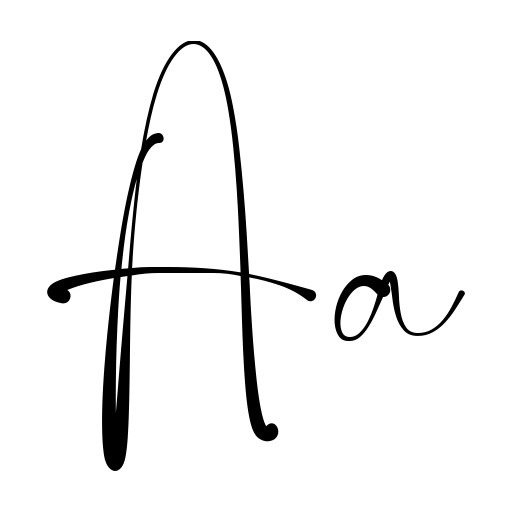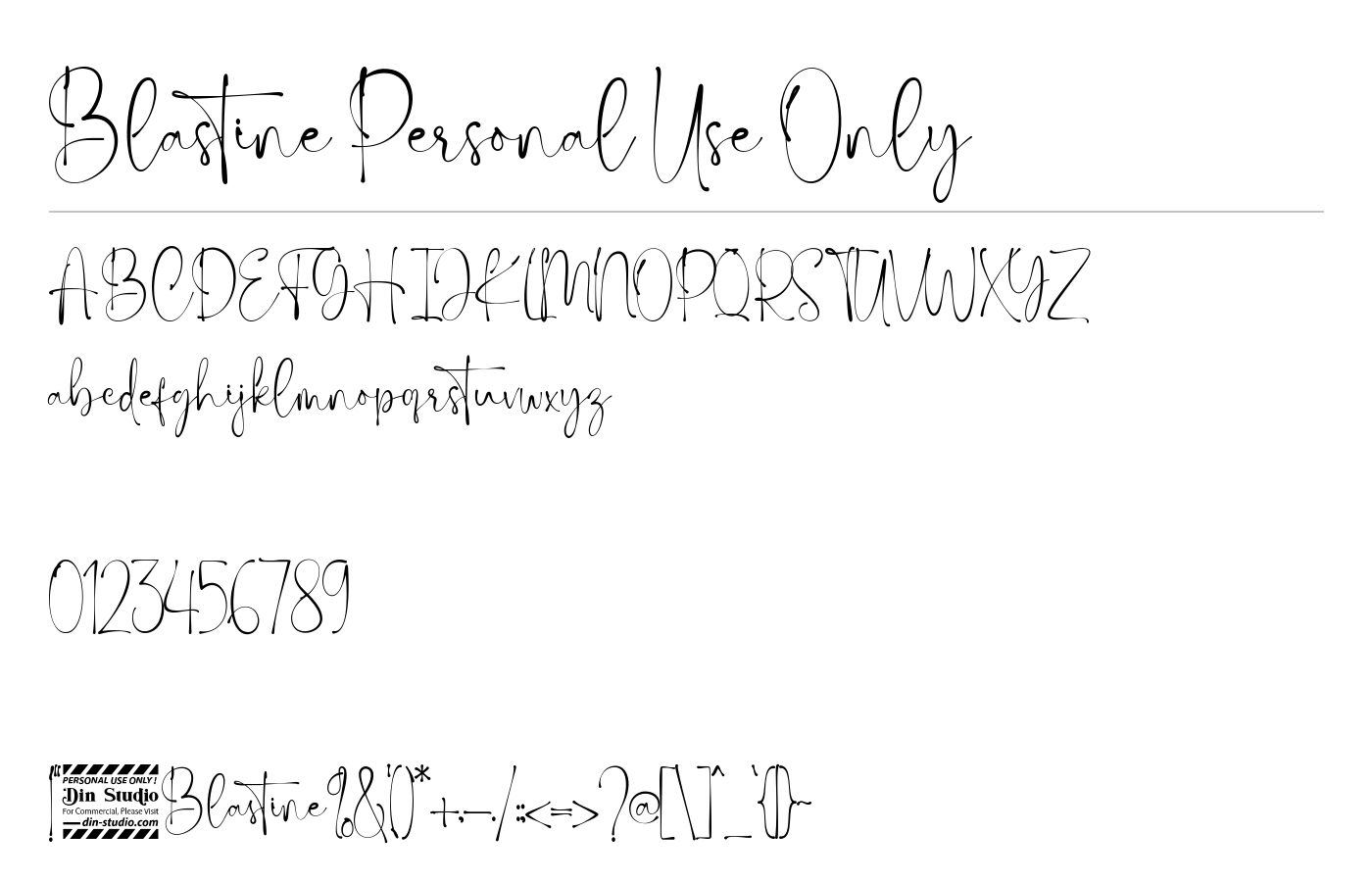
Blastine Personal Use Only is a delicate and whimsical script font characterized by its thin, flowing strokes and elegant, handwritten style. With its tall, narrow letterforms and playful loops, it brings a charming and personal feel, making it ideal for invitations, greeting cards, and creative projects where a light, graceful touch is desired. This font works best in decorative settings where its artistry can shine without sacrificing readability.
Blastine Personal Use Only Font
About Blastine Personal Use Only Font